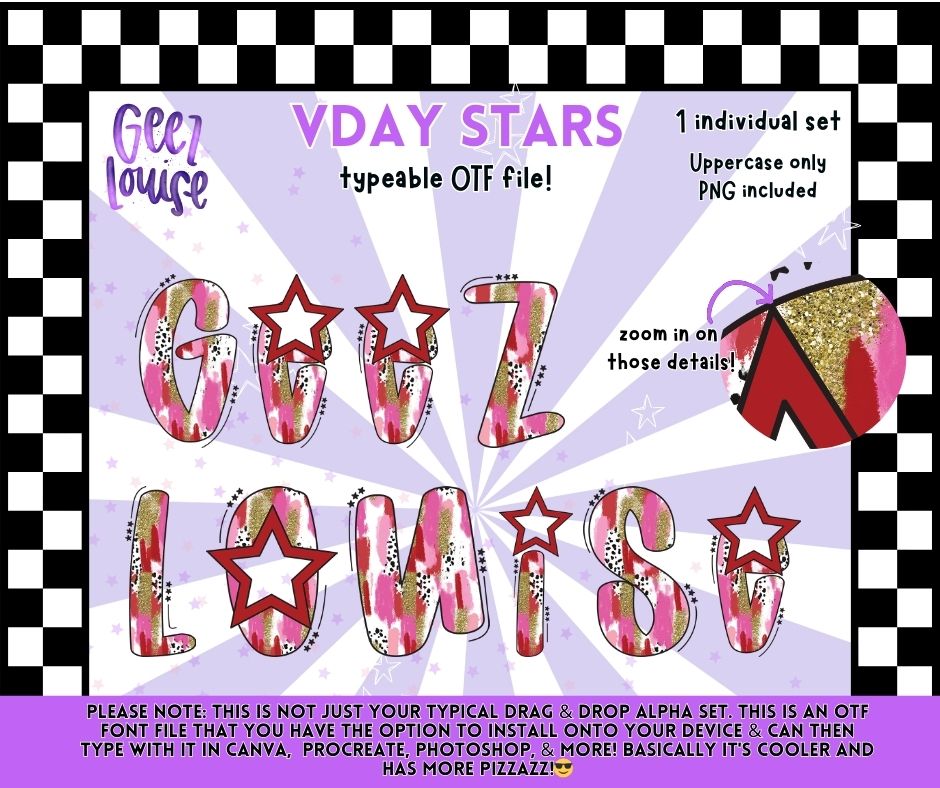
VDAY Stars Alpha Set | Typeable OTF Font + PNG Letters | Valentine Star Alphabet
Bring some sparkle to Valentine’s season with the VDAY Stars alpha set!
Featuring bold Valentine pinks, gold glitter texture, and star cutout details, this alpha set is perfect for name designs, shirts, graphics, stickers, party printables, and boutique-style digital creations.
• Pink brush pattern with gold glitter accents + star details
Cute, bold, and full of Valentine pizzazz. ⭐💖✨